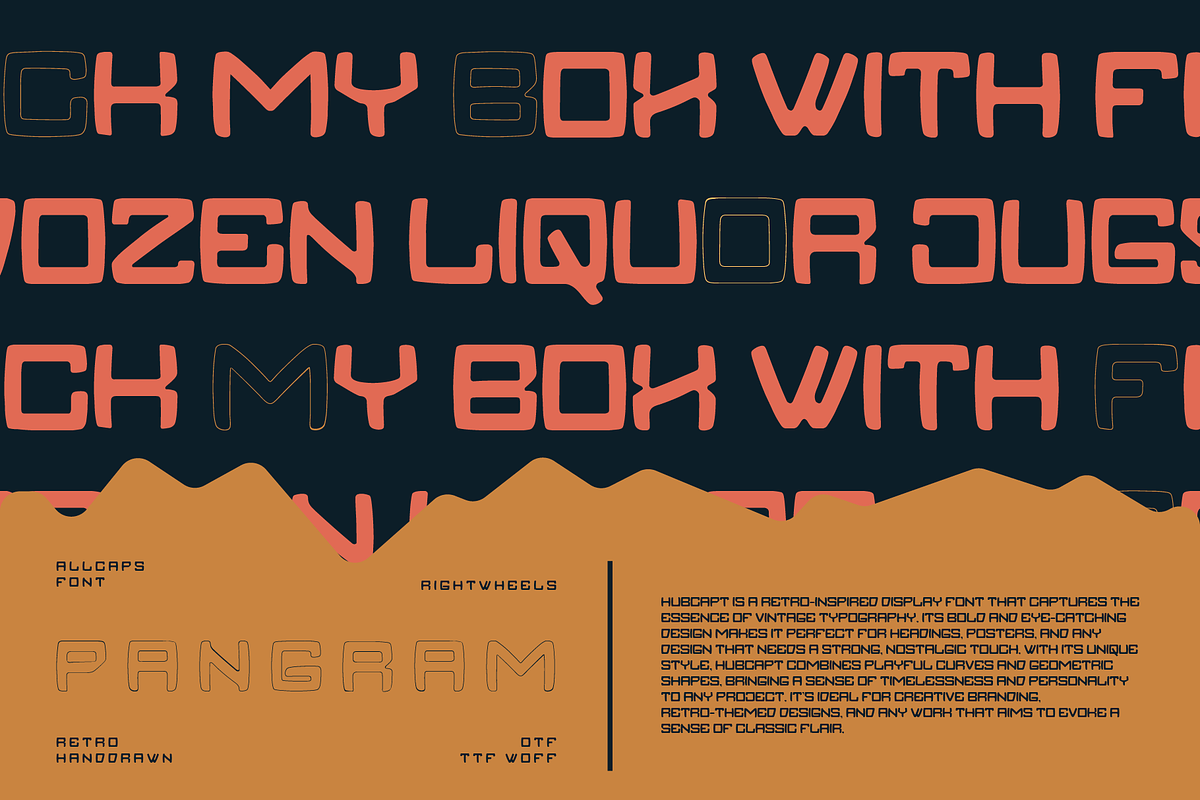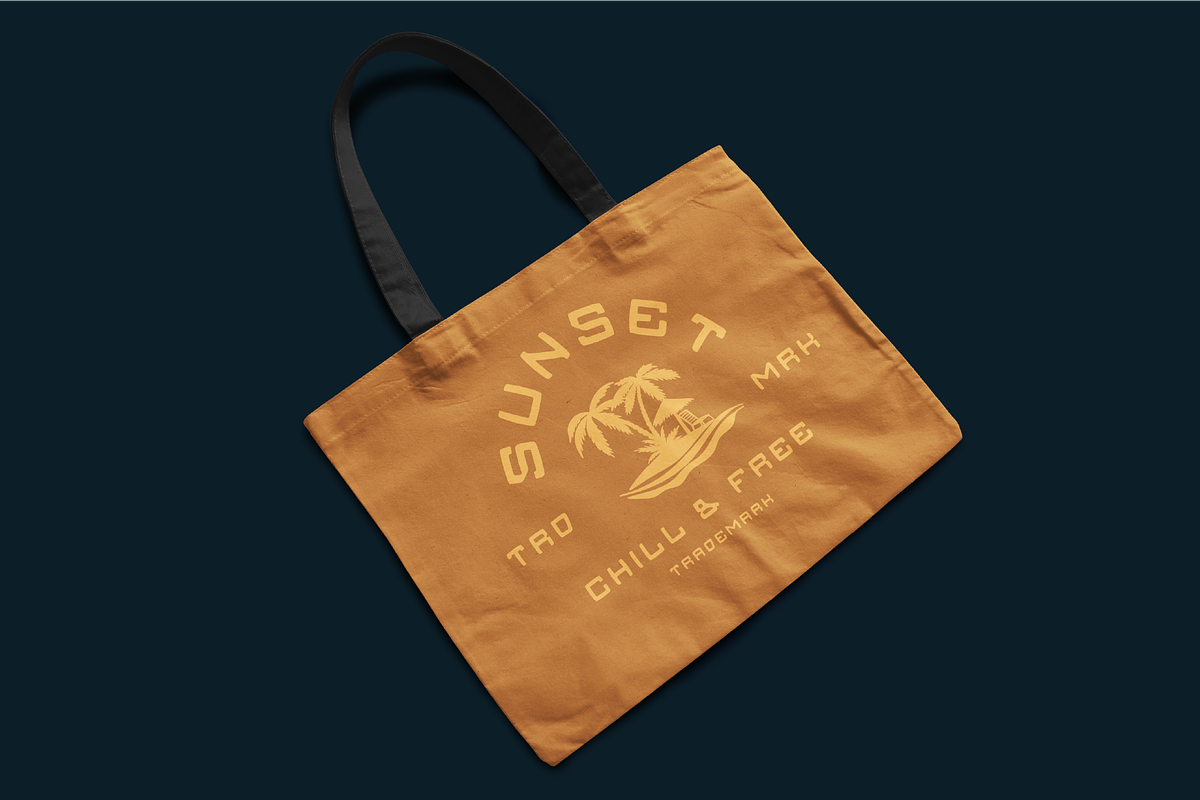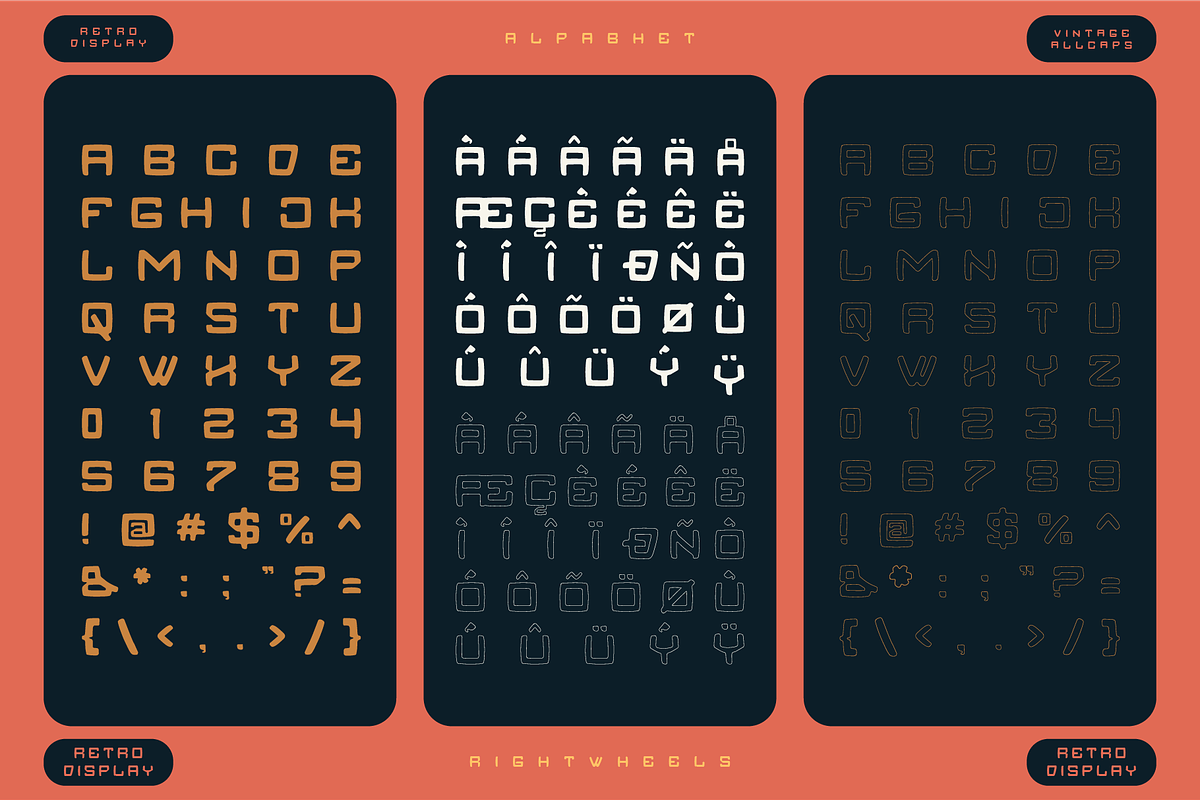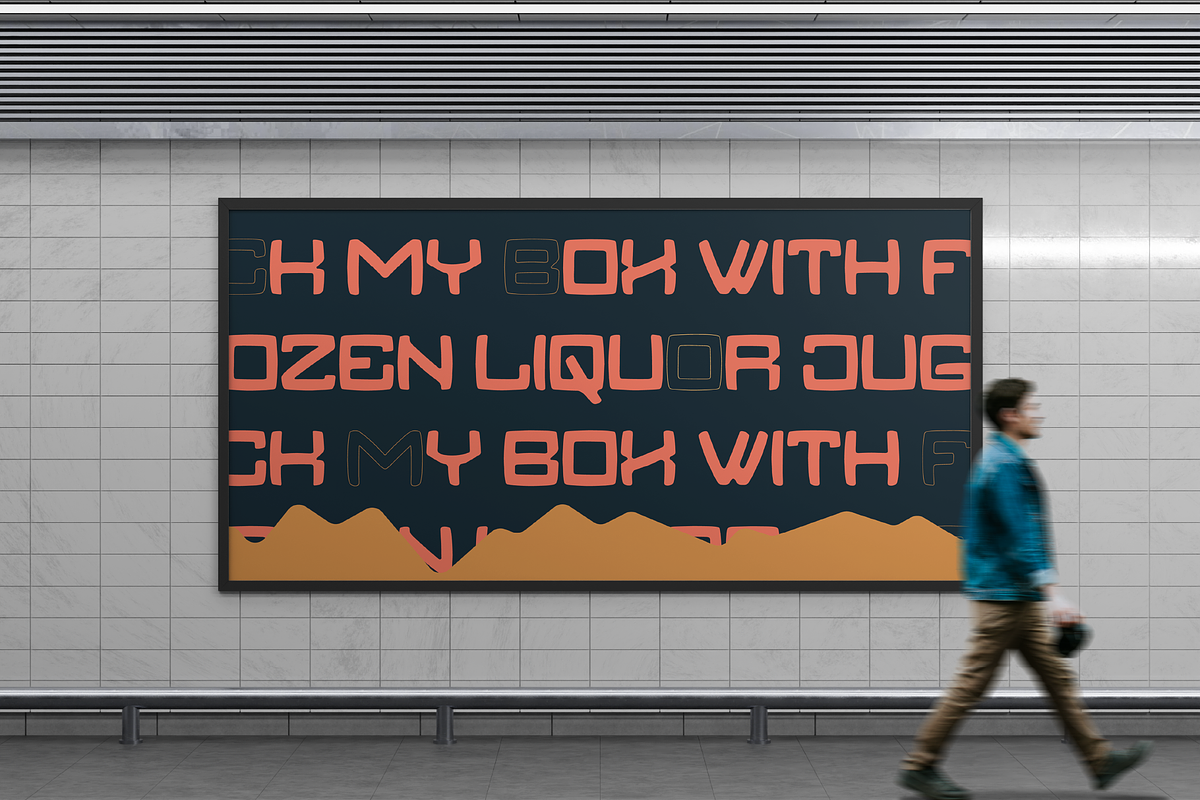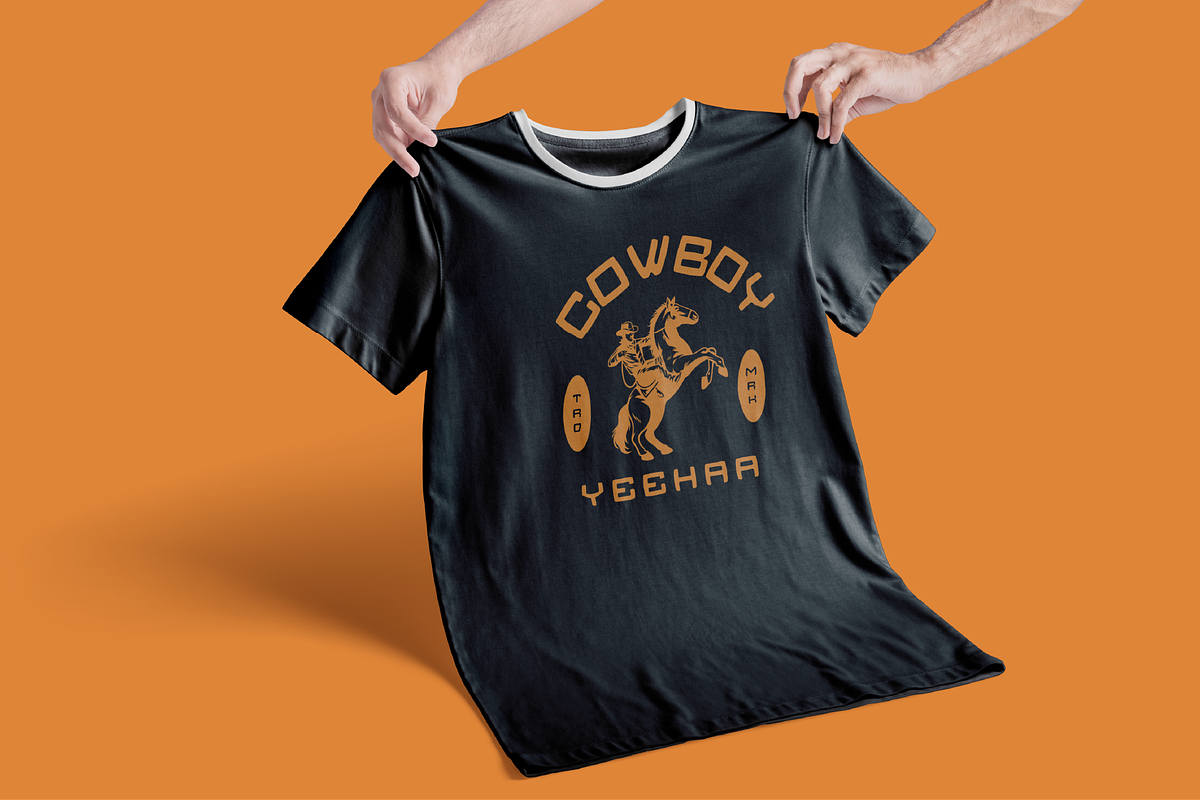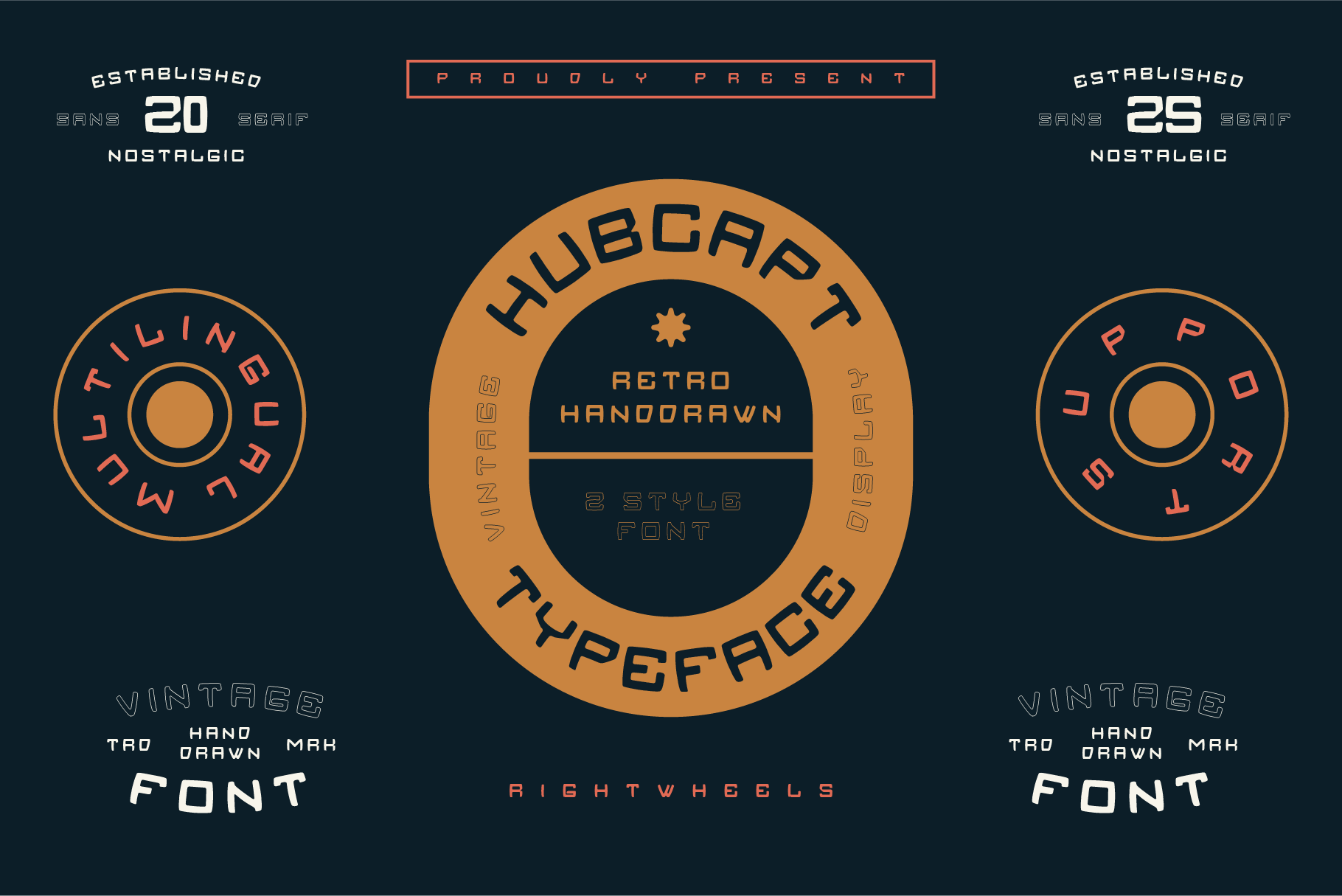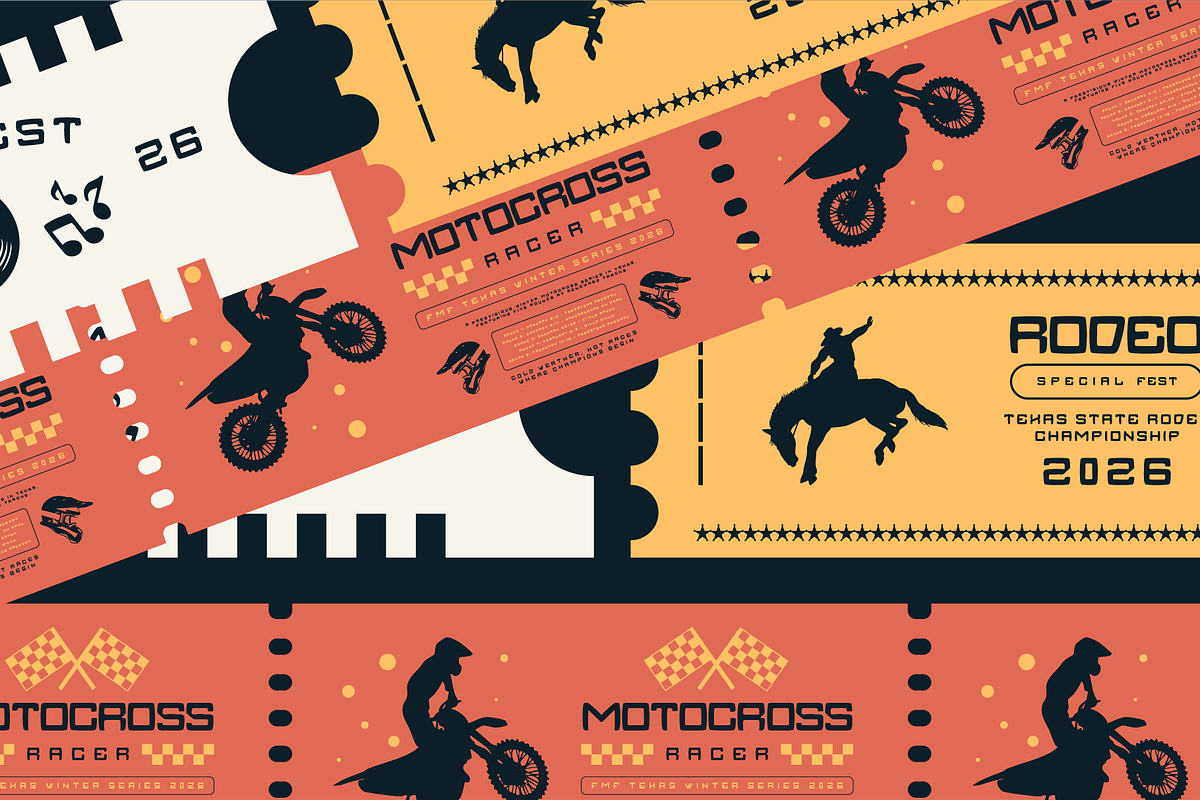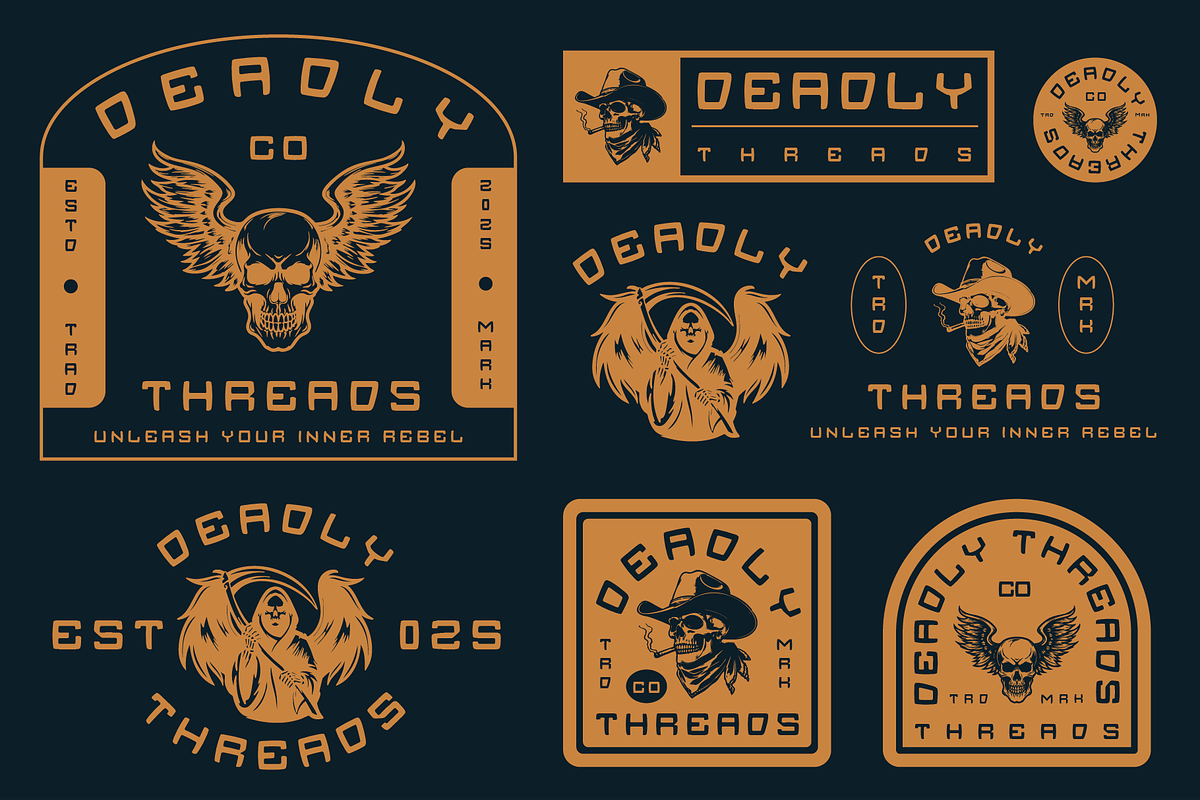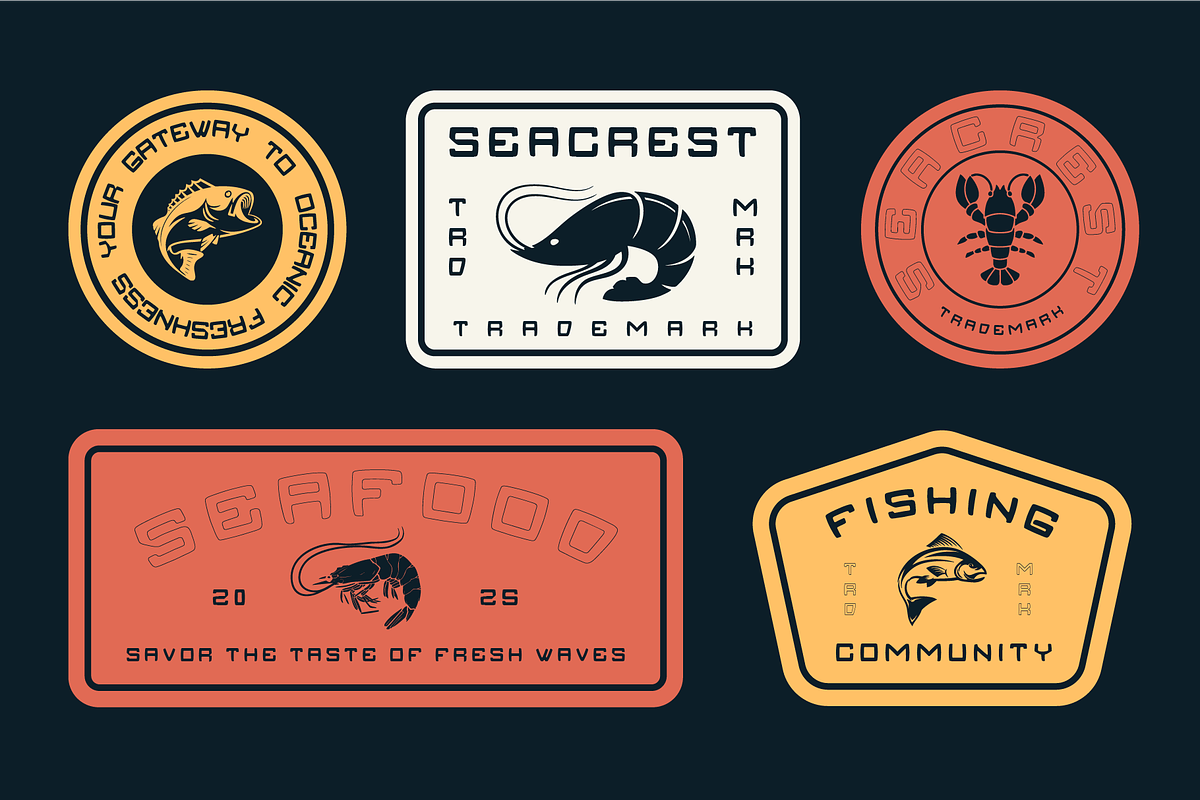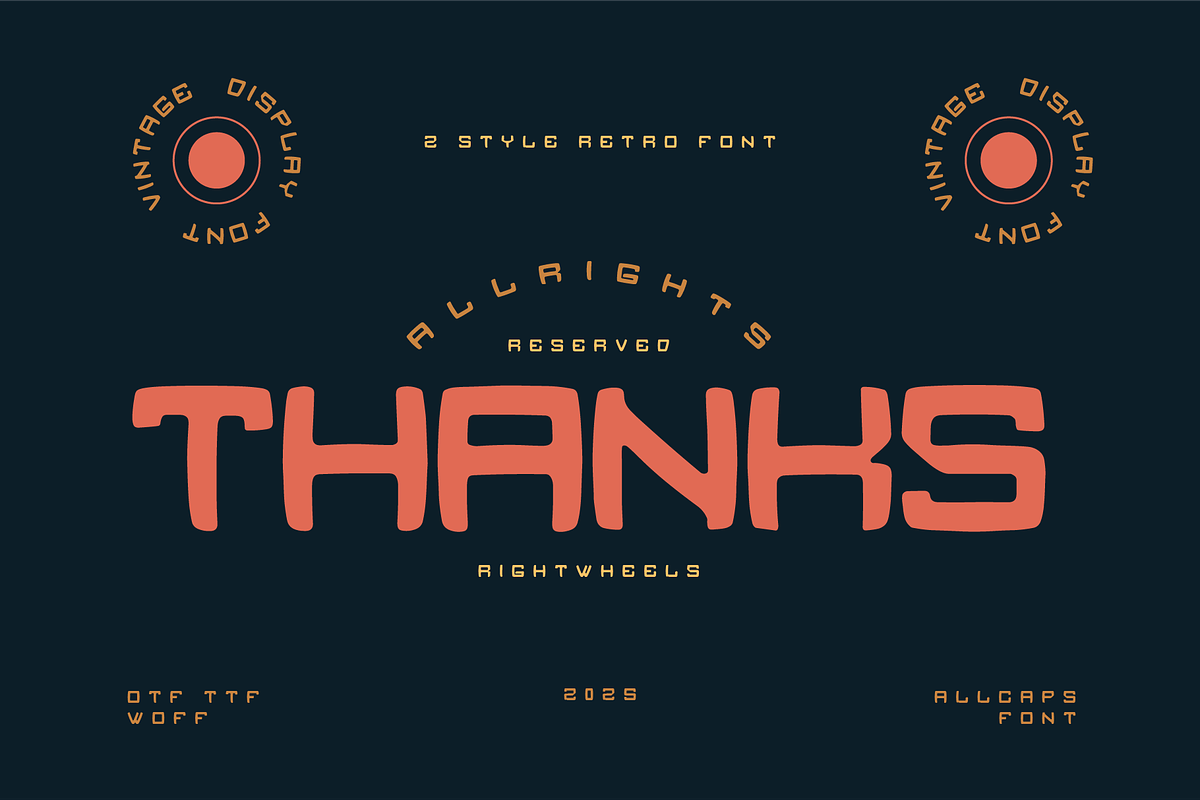
HUBCAPT - Retro Handdrawn Font
HUBCAPT is a retro-inspired display font that captures the essence of vintage typography. Its bold and eye-catching design makes it perfect for headings, posters, and any design that needs a strong, nostalgic touch. With its unique style, HUBCAPT combines playful curves and geometric shapes, bringing a sense of timelessness and personality to any project. It’s ideal for creative branding, retro-themed designs, and any work that aims to evoke a sense of classic flair.